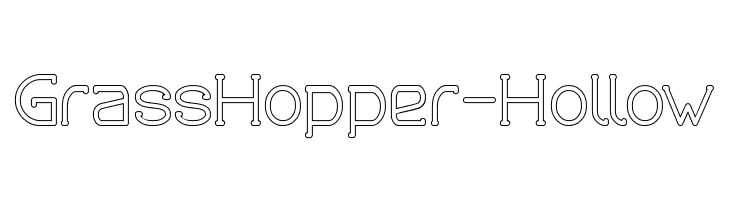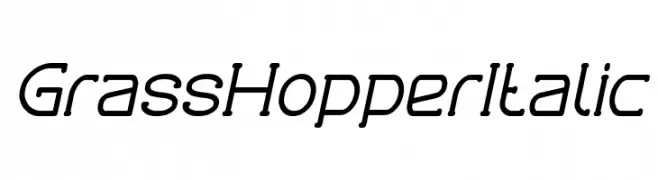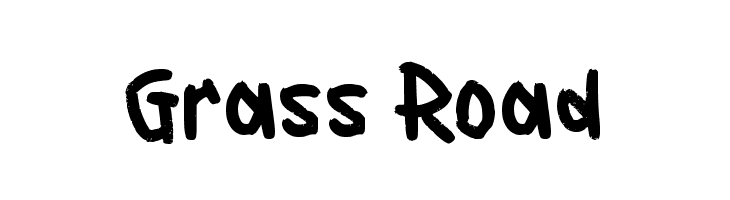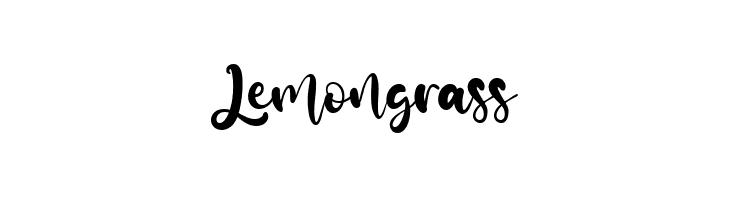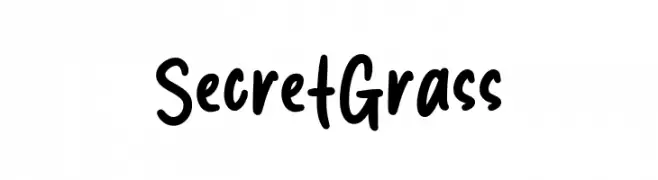
A bold, italicized font with rounded, modern characters.
A modern, hollow, outlined font with a playful and geometric style.
An italicized font with a modern and elegant style, featuring consistent stroke widths.
A playful and elegant script font with flowing, cursive letters.
A bold, outlined decorative font with a playful and artistic style.
A bold, graffiti-inspired font with sharp angles and a three-dimensional look.
A bold, hand-drawn font with an energetic and playful style.
A playful, casual handwritten font with smooth, rounded letterforms.
A decorative font with uppercase letters inside gravestone shapes, featuring flowers and grass.